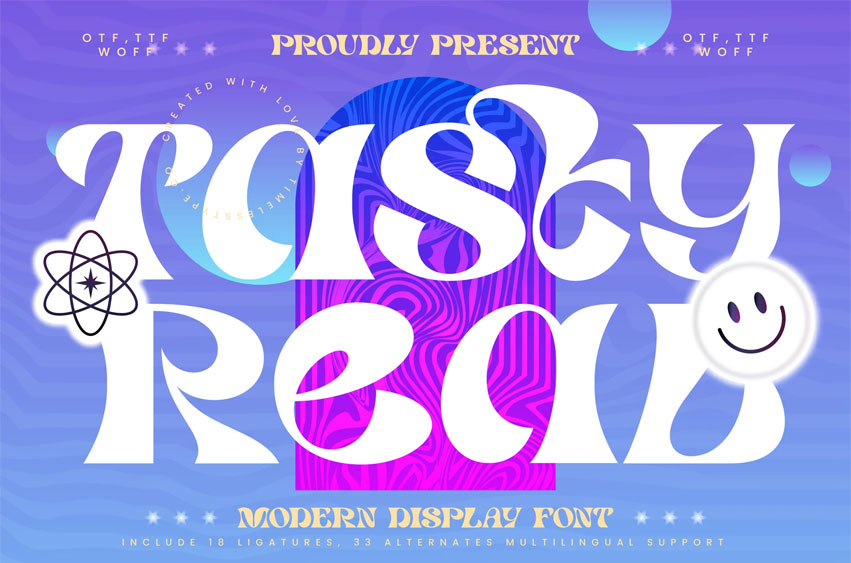
Tasty Real Font
Tasty Real Font is a vibrant modern display font bursting with playful curves, bold contrast, and eye-catching psychedelic energy. Its expressive shapes and soft retro gradients make it perfect for youth branding, posters, music artwork, pop culture designs, and anything that demands a fun, colorful, and high-impact visual identity.
With 18 ligatures and 33 alternates, it offers creative flexibility for standout typography.